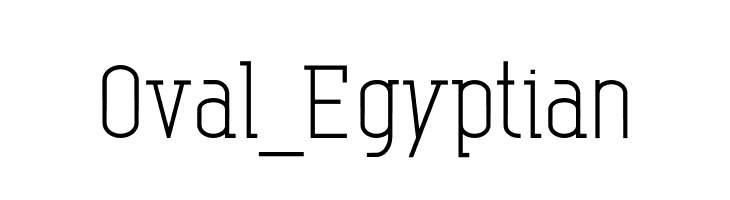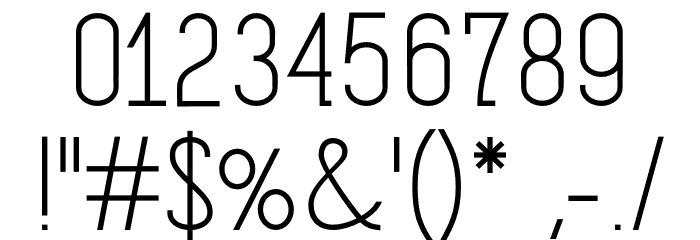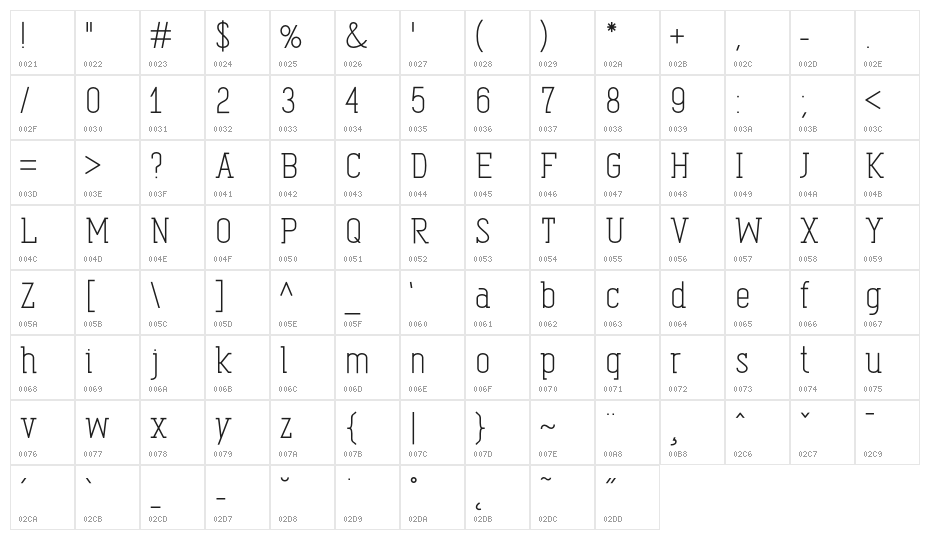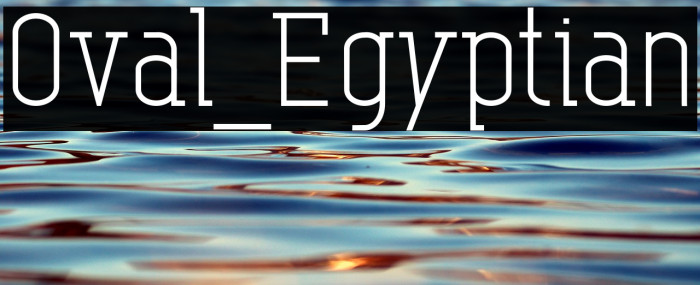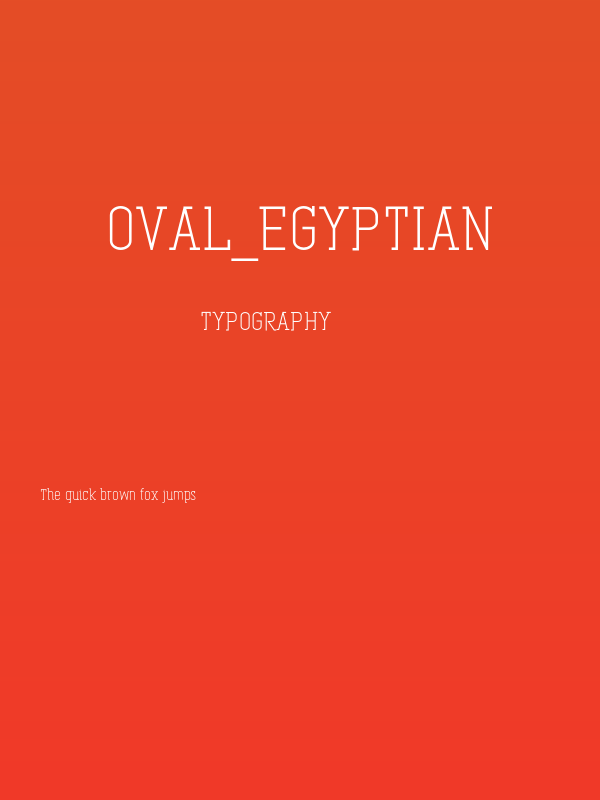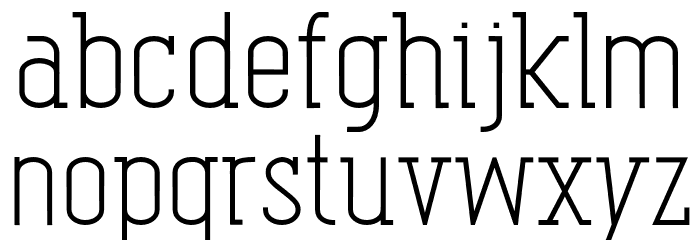
Oval_Egyptian Font
Oval_Egyptian Description
This font features a modern and clean design with a geometric structure. The characters are tall and narrow, giving it a sleek and elegant appearance. The uppercase letters are uniform in height, while the lowercase letters maintain a consistent baseline. The numerals are clear and easy to read, making them suitable for various applications. The special characters are well-defined, adding versatility to the font. Overall, it combines a contemporary aesthetic with functional readability.